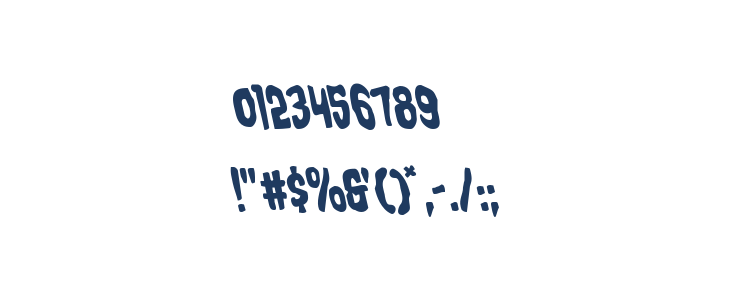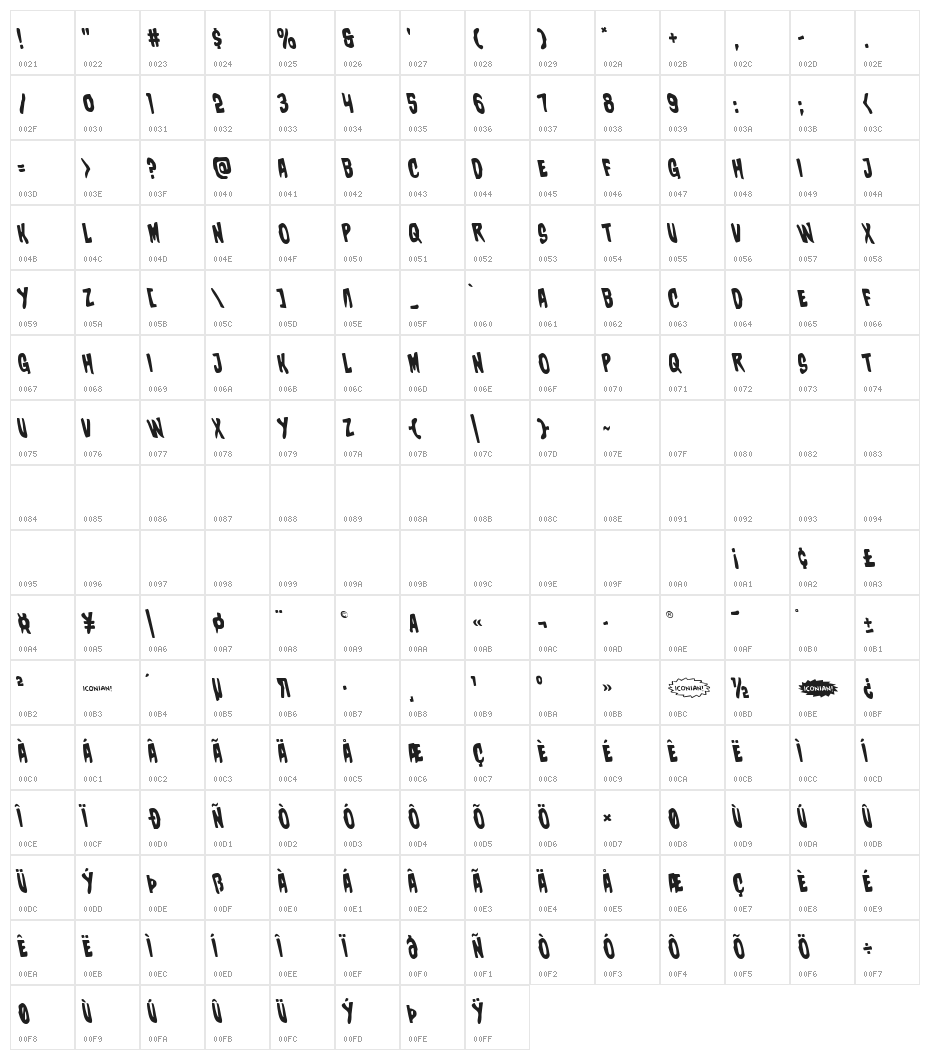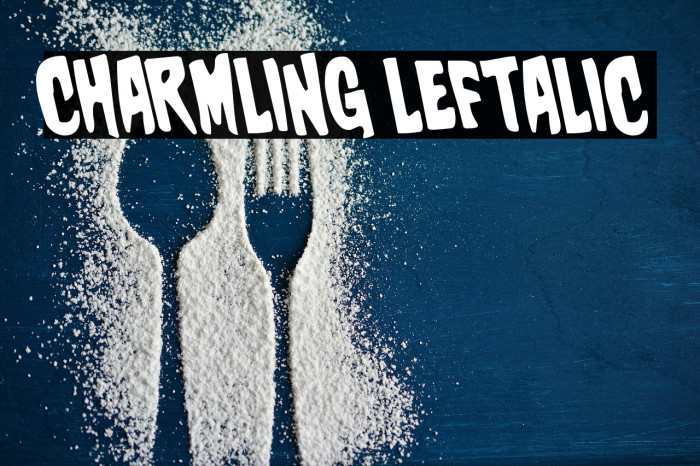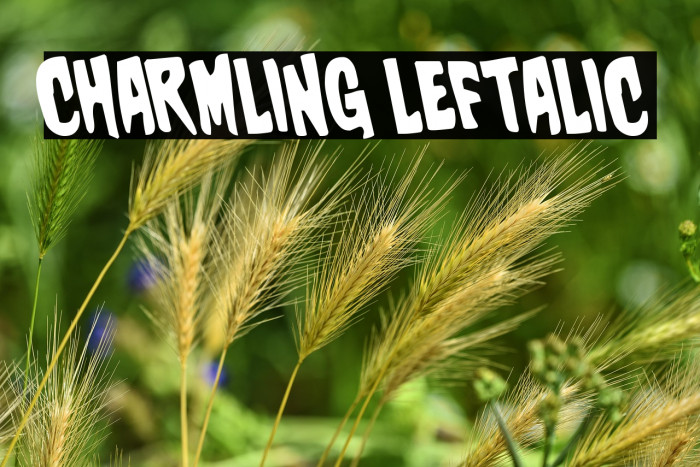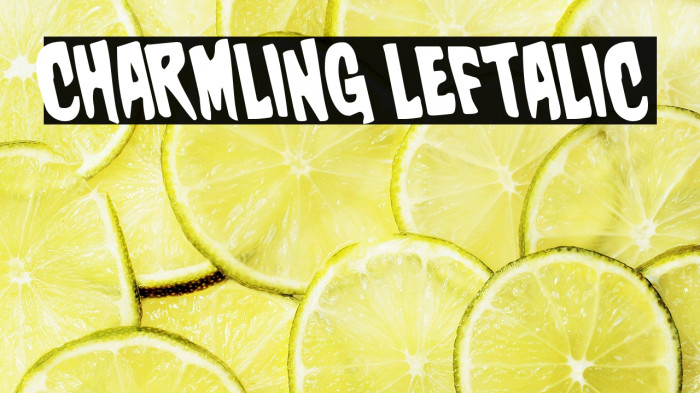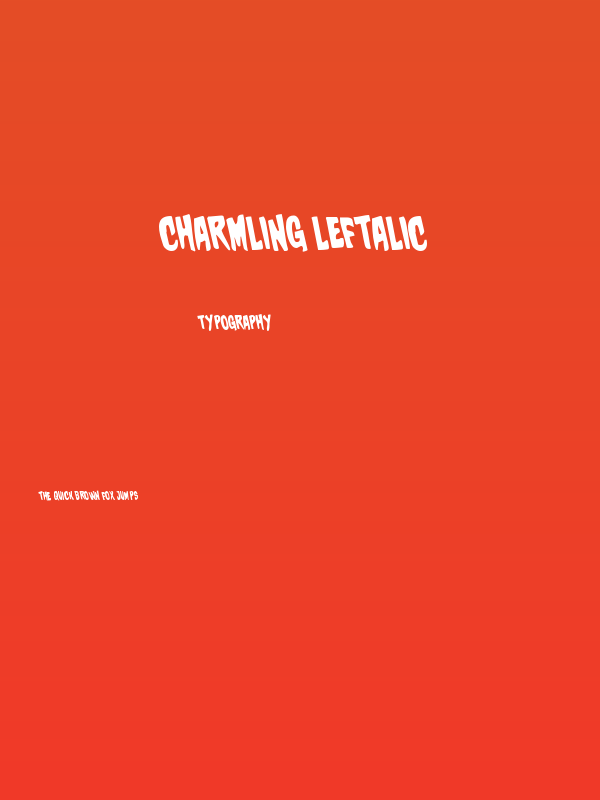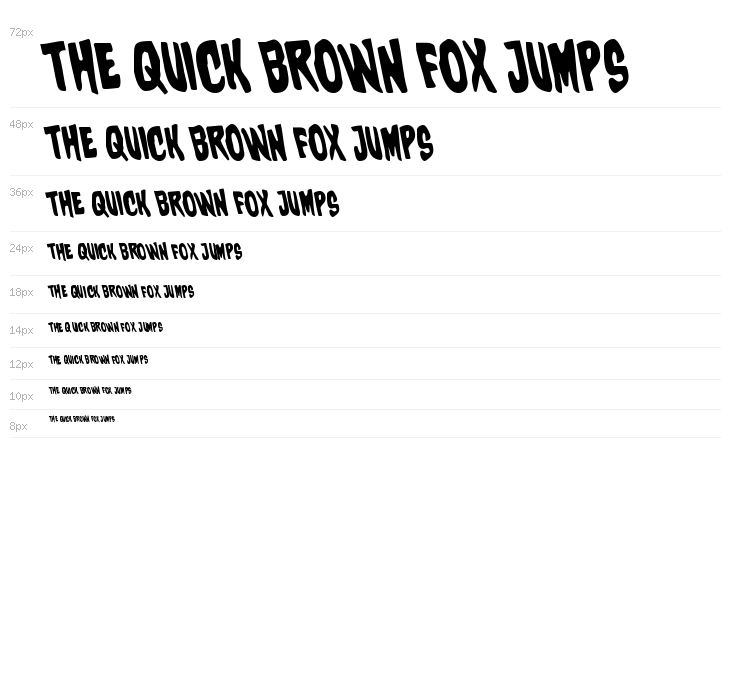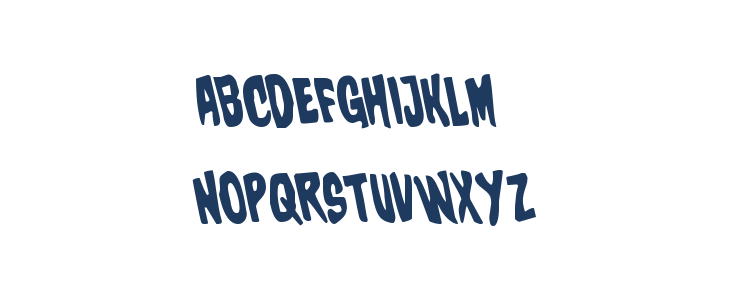
Charmling Leftalic Font
Charmling Leftalic Description
This font features a playful and dynamic style with a distinct slant to the left, giving it a whimsical and energetic appearance. The characters are bold and slightly irregular, adding to its quirky charm. The uppercase and lowercase letters maintain a consistent style, while the numbers and special characters complement the overall design. The strokes are thick and uniform, providing a strong visual impact. This font is ideal for creative projects that require a fun and lively touch.
| Overall Style | Playful, Quirky |
| Proposed Projects | Perfect for children's books, playful branding, party invitations, and creative posters. |